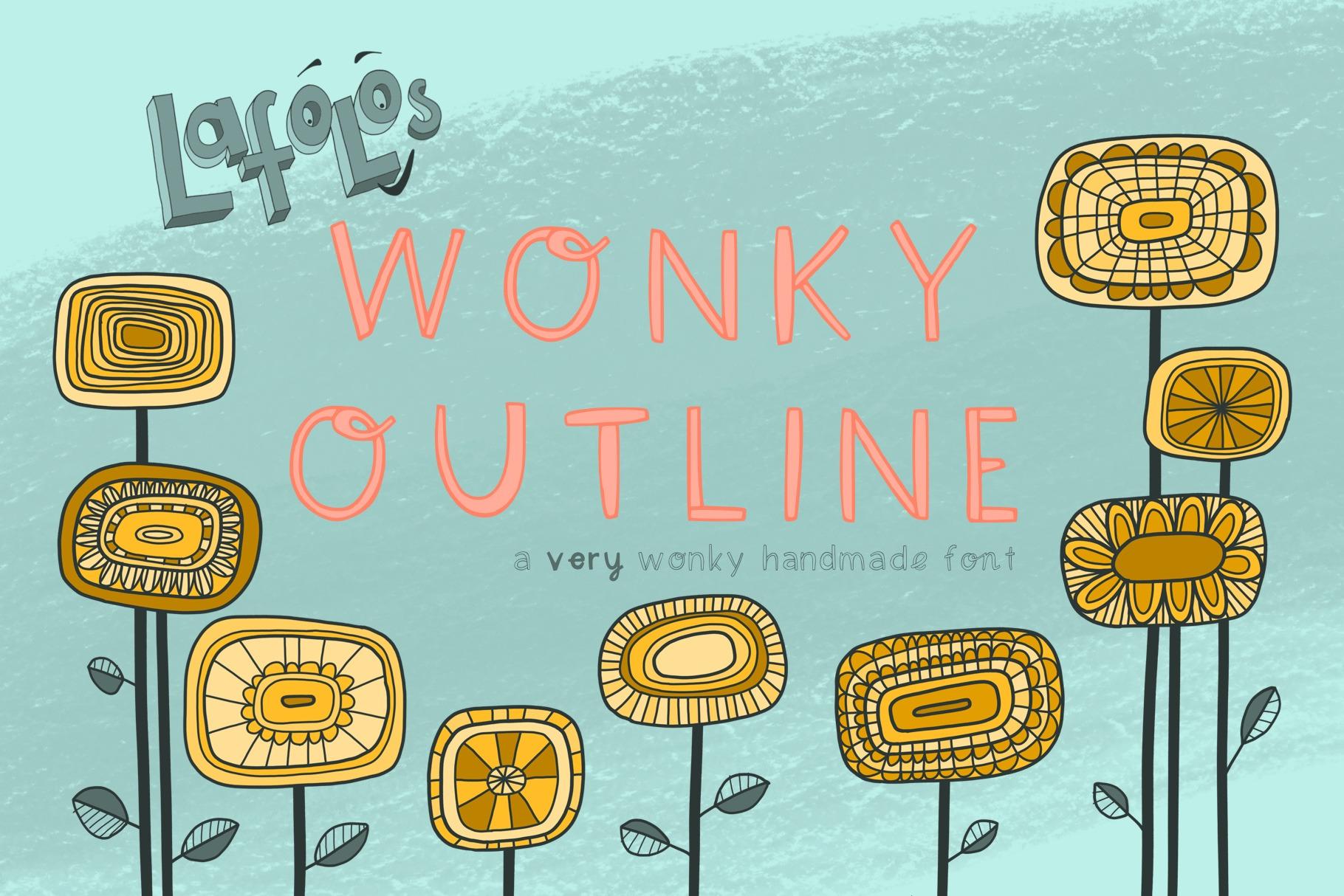
LAFOLOs very Wonky Outline font
Lafolo´ s Wonky Outline - a quirky hand drawn font for headlines, package, branding and more.
As a bonus, I included the filled version of the font. For color variation, use the outline and select the filling with the Magic Wand(Photoshop)/Automatic Select (Procreate) and fill with the color of choice. Every letter and all figures come in two variations to add variety to your type face. I also included one of the letterings as a Photoshop File.